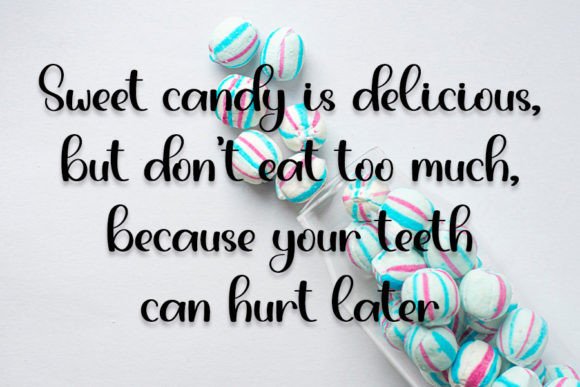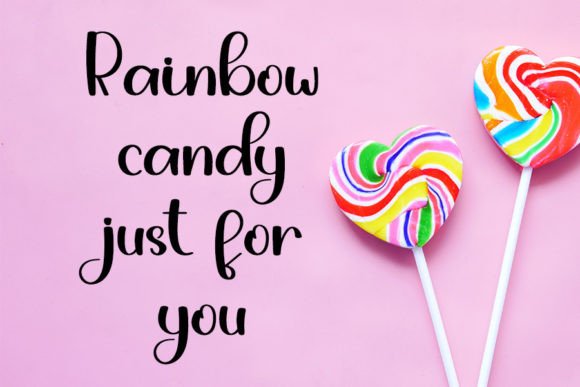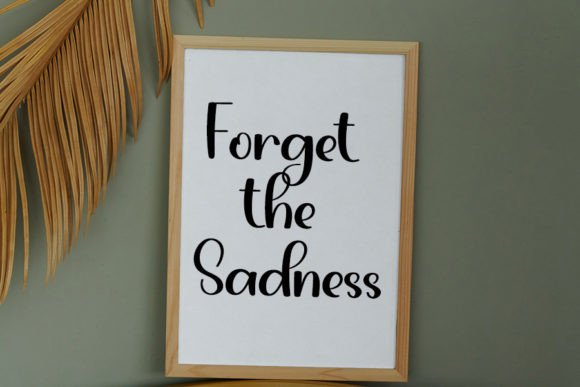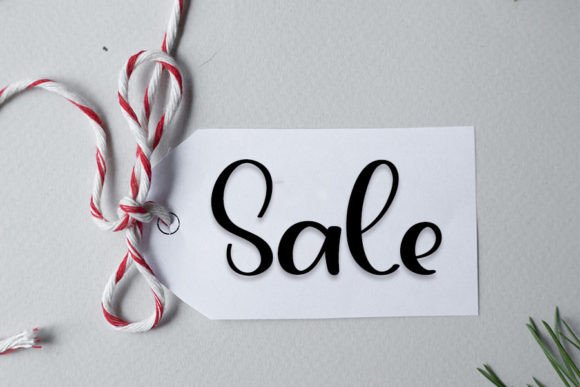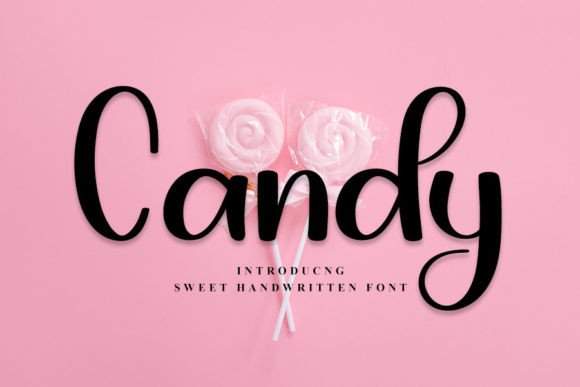
Candy Font: Elevate Your Designs with a Touch of Elegance
In the world of typography, fonts play a crucial role in conveying the tone and personality of a design. For designers and crafters looking to add a touch of sophistication and elegance to their projects, the Candy Font is an excellent choice. This trendy handwritten font boasts a contemporary atmosphere and impeccable form, making it perfect for a wide range of design applications.
Inspired by Timeless Classic Calligraphy
The Candy Font is inspired by the beauty of classic calligraphy, a style that has been admired for centuries. Calligraphy, an art form that involves decorative handwriting, has been used in various forms of art, from ancient manuscripts to modern-day wedding invitations. The Candy Font captures the essence of classic calligraphy, bringing a sense of tradition and heritage to your designs.
A Contemporary Twist on Classic Elegance
What sets the Candy Font apart from traditional calligraphy fonts is its contemporary twist. The font’s design is modern and fresh, making it perfect for designers who want to create unique and eye-catching designs. The Candy Font’s clean lines, flowing curves, and subtle imperfections give it a human touch, making it ideal for projects that require a personal and elegant feel.
Key Features of the Candy Font
- Trendy and Modern: The Candy Font is a stylish and contemporary font that will add a touch of sophistication to your designs.
- Handwritten with Flair: The font’s handwritten style gives it a personal and elegant feel, perfect for projects that require a touch of class.
- Impeccable Form: The Candy Font’s design is meticulously crafted, ensuring that every letter and character is perfect for use in a wide range of design applications.
- Contemporary Atmosphere: The font’s modern design makes it perfect for designers who want to create fresh and eye-catching designs.
Uses for the Candy Font
The Candy Font is versatile and can be used in a variety of design projects, including:
- Wedding Invitations: Add a touch of elegance and sophistication to your wedding invitations with the Candy Font.
- Branding and Packaging: Use the Candy Font to create eye-catching logos, labels, and packaging that will make your brand stand out.
- Stationery and Greeting Cards: The Candy Font is perfect for creating beautiful stationery and greeting cards that will make a lasting impression.
- Digital Designs: Use the Candy Font in your digital designs, such as website headers, social media graphics, and more.
Tips for Using the Candy Font
To get the most out of the Candy Font, here are a few tips:
- Pair with Neutral Backgrounds: The Candy Font looks best on neutral backgrounds, allowing the font’s elegance to shine through.
- Experiment with Colors: Try pairing the Candy Font with different colors to create unique and eye-catching designs.
- Use for Headings and Titles: The Candy Font is perfect for use in headings and titles, adding a touch of elegance and sophistication to your designs.
The Candy Font is a beautiful and elegant font that will add a touch of sophistication to any design project. Its trendy and modern design, inspired by timeless classic calligraphy, makes it perfect for designers and crafters looking to create unique and eye-catching designs. With its impeccable form and contemporary atmosphere, the Candy Font is a versatile font that can be used in a wide range of design applications.